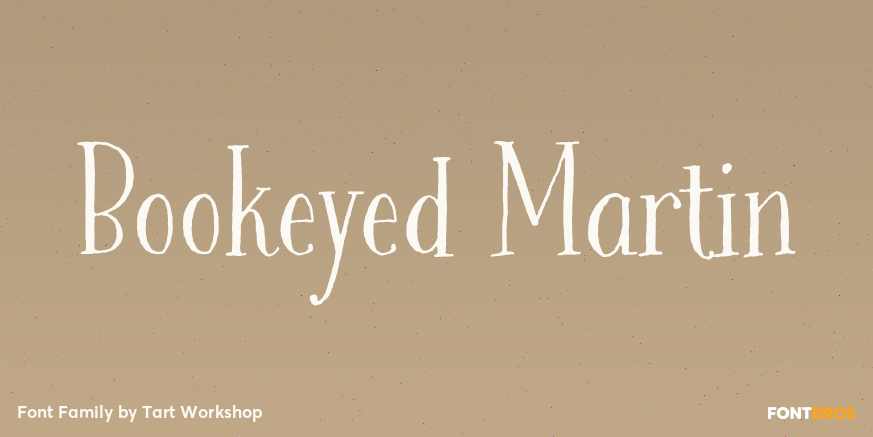
Bookeyed Martin
Huzzah for Bookeyed Martin, the much anticipated addition to the popular Bookeyed family. Upright & Strong he attracts eyes to his flashy serifs and ball terminals. His handsome lines, created with an old-fashioned dip pen & sepia ink, reference vintage…